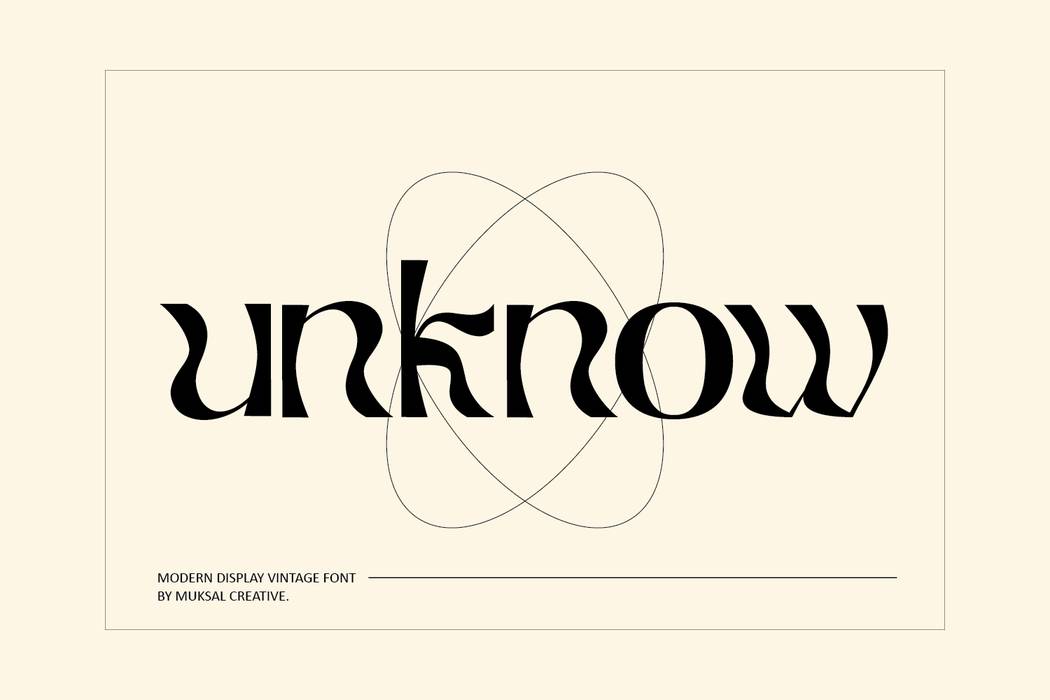
This unique serif font blends modern and vintage styles with its high contrast strokes and sharp, bracketed serifs that give it a distinctive, artistic flair. Its tall, elegant letterforms with unusual shapes and decorative curves make it ideal for eye-catching headlines, luxury branding, and creative editorial designs where sophistication and individuality are key. Perfect for projects seeking a stylish, refined, and memorable visual impact.
Unknow Font
About Unknow Font
| Font family | Unknow Font |
| Release date | 2022-05-08 |
| Designer | Muksal Creative |